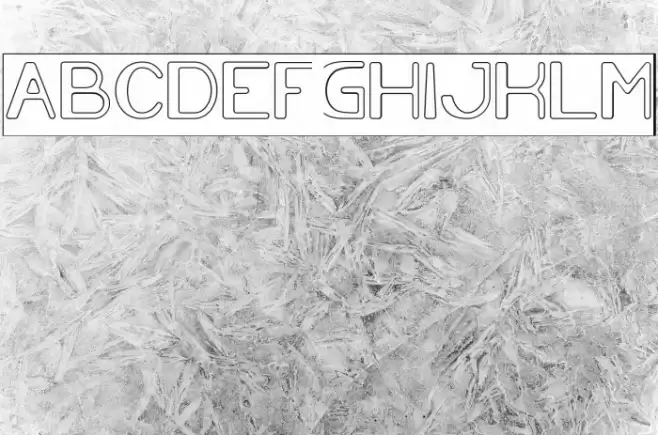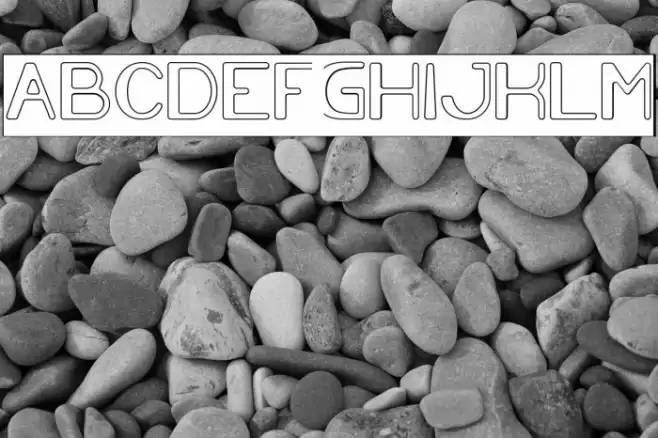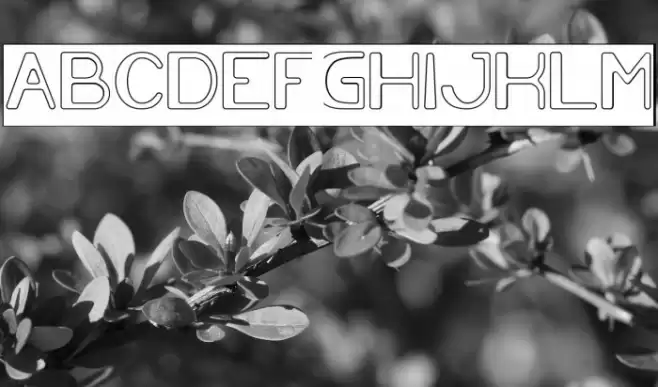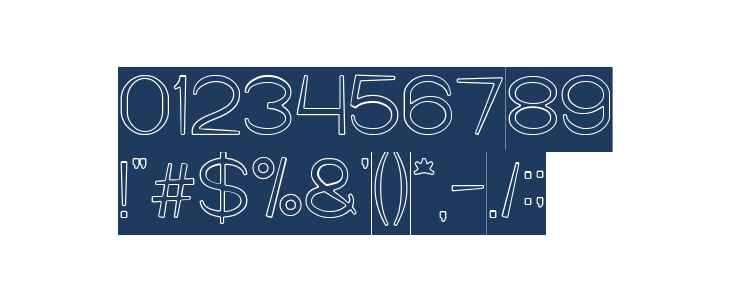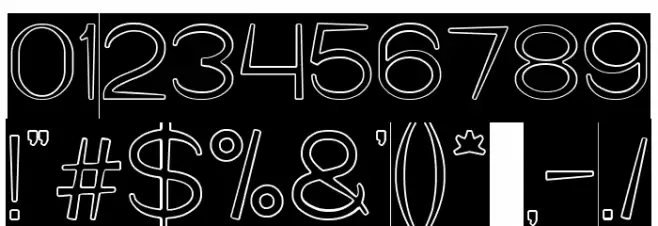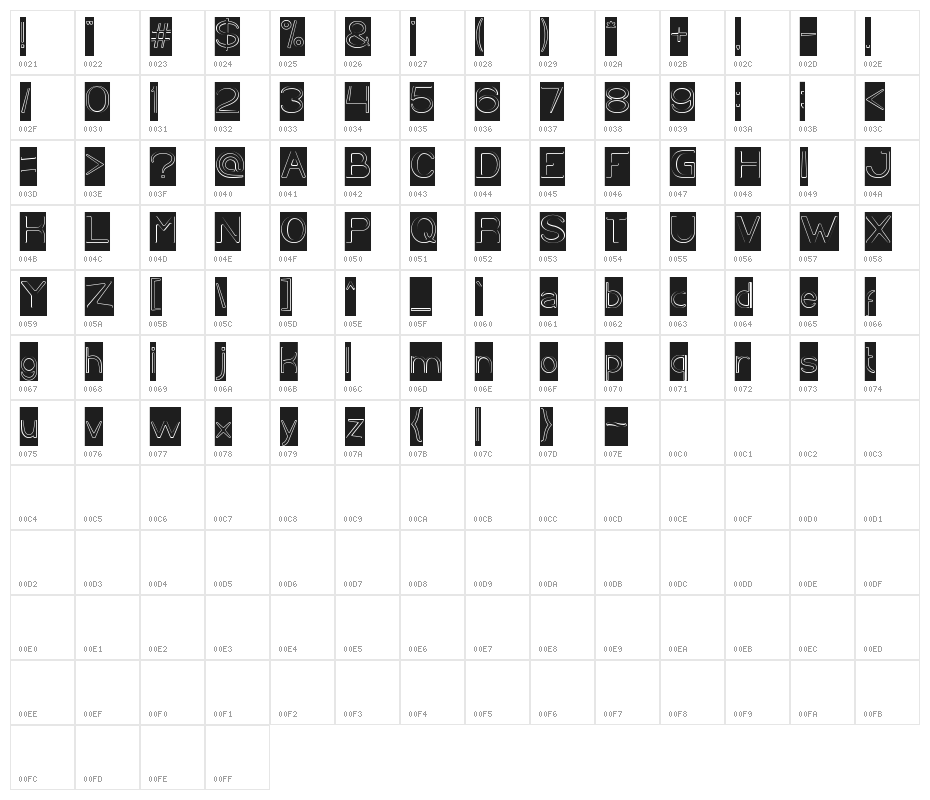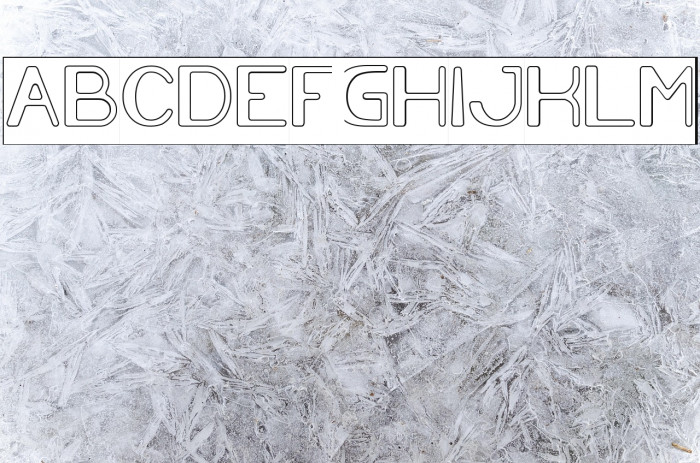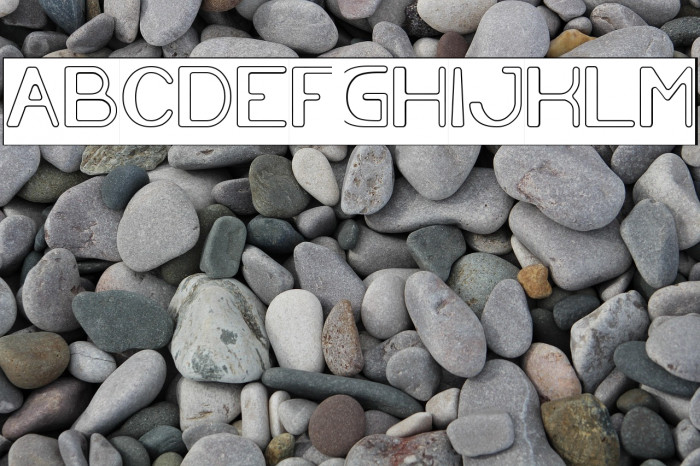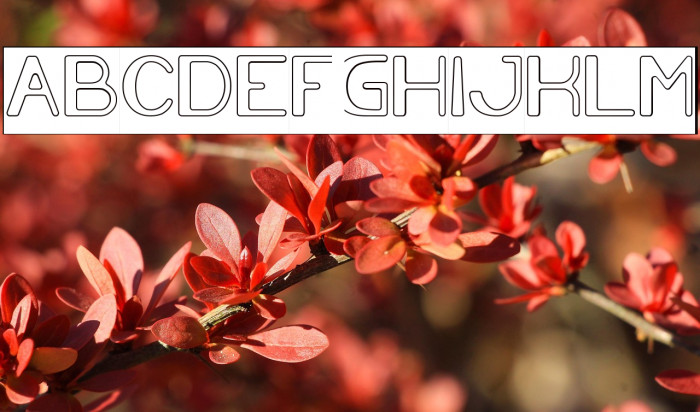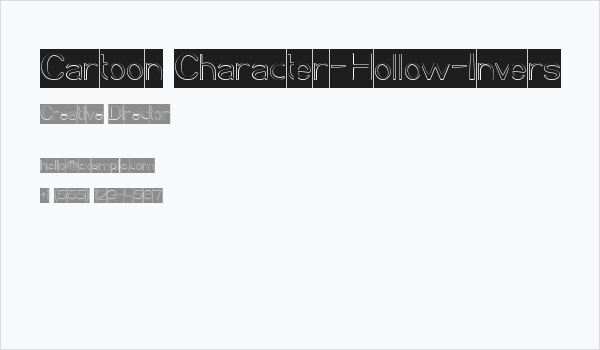
Cartoon Character-Hollow-Invers Font
Cartoon Character-Hollow-Invers Description
This font features a playful, hollow design with a cartoon-like appearance. The characters are outlined, giving them a unique, inverse look that stands out against dark backgrounds. The uppercase and lowercase letters maintain a consistent style, with rounded edges and a smooth flow. Numbers and special characters are designed to match the whimsical theme, making them suitable for creative and fun projects. The font's hollow nature adds a sense of lightness and openness, making it visually appealing for various applications.
A playful, hollow cartoon-style font with outlined characters from Uncategorized fonts.
- Font: Cartoon Character-Hollow-Invers
- Proposed Projects: Ideal for children's books, comic strips, playful branding, and creative posters.